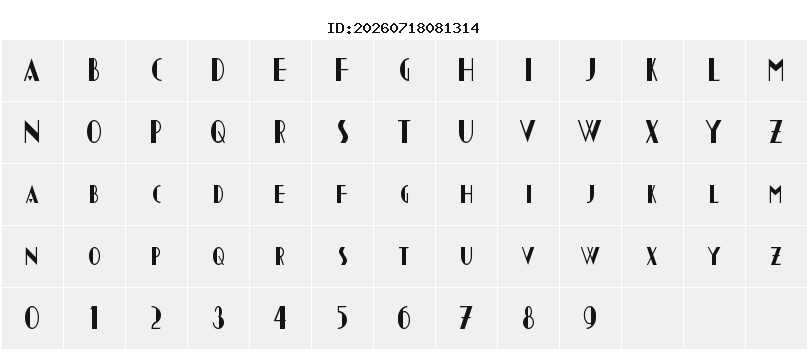
Chapleau Preview
• Font Name: Chapleau
• Full Font Name: Chapleau
• Version: Version 1.60 March 29, 2015
• Designer: Neale Davidson
• Manufacturer: Pixel Sagas
About Chapleau.otf
Chapleau.otf is a modern, elegant sans-serif font designed for ultimate readability and visual harmony. Perfect for branding, headlines, web design, and print materials.